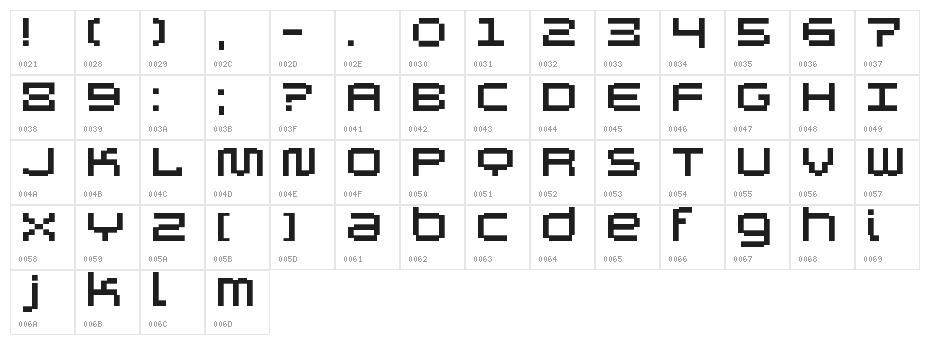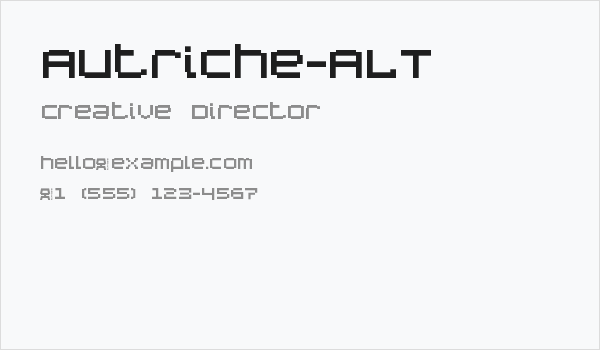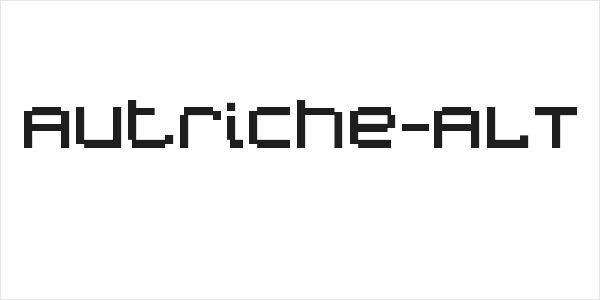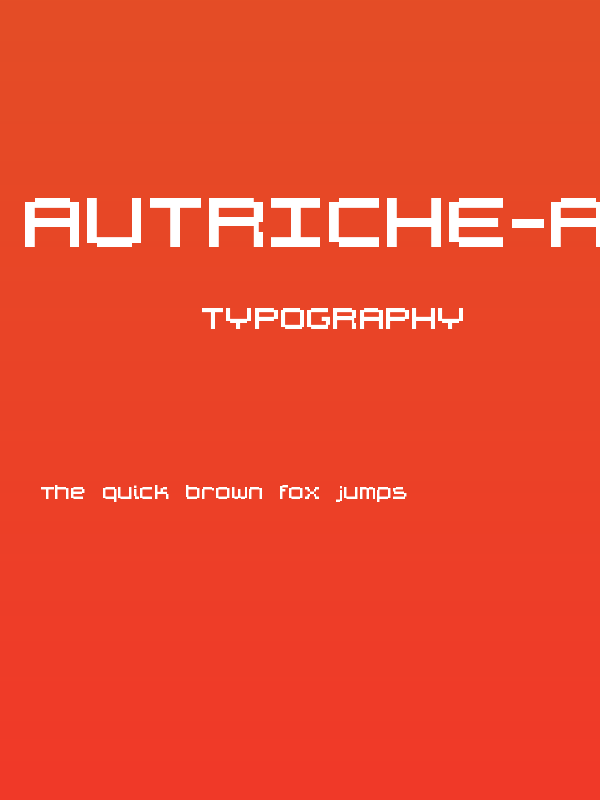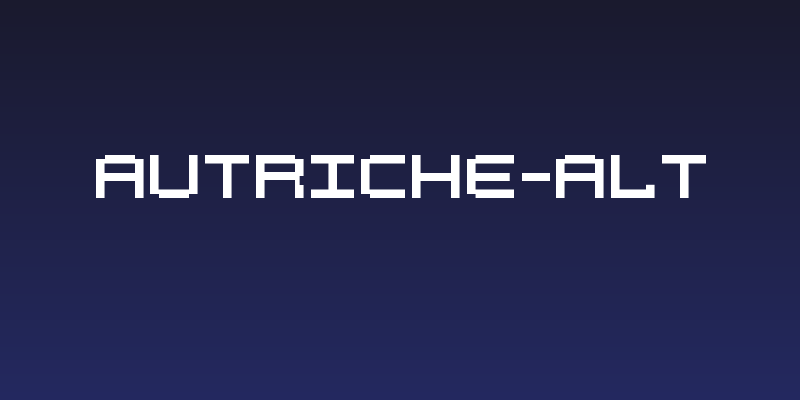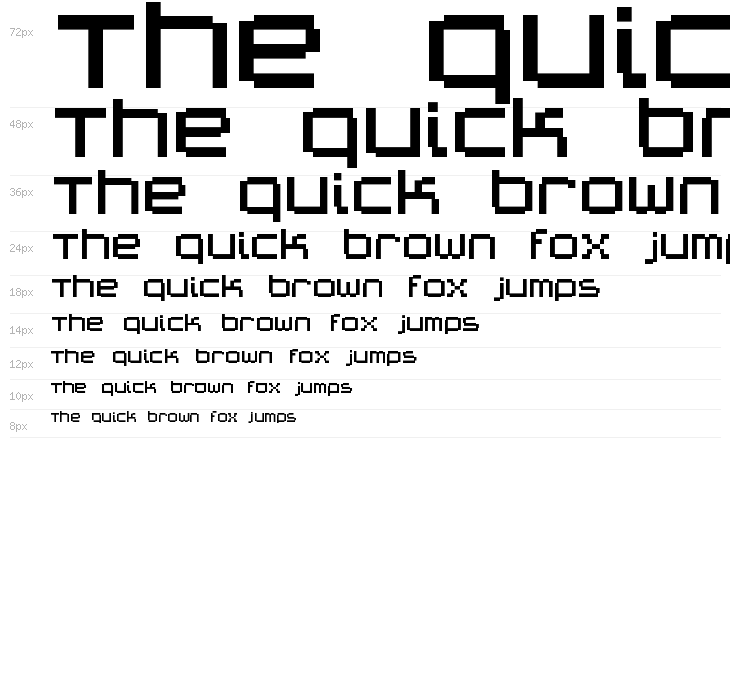
Autriche-ALT Font
Autriche-ALT Description
This font features a distinct pixelated, blocky style reminiscent of early digital displays and retro video games. Each character is composed of uniform square blocks, creating a highly geometric and structured appearance. The uppercase and lowercase letters maintain a consistent height, contributing to a monospaced feel, although the font is not strictly monospaced. The numerals and special characters follow the same design principles, ensuring visual harmony across all glyphs. The font's aesthetic is both nostalgic and modern, making it suitable for projects that require a digital or tech-inspired look.
| Overall Style | Retro, Digital |
| Proposed Projects | Ideal for video game design, tech-themed posters, digital art projects, and retro-style branding. |